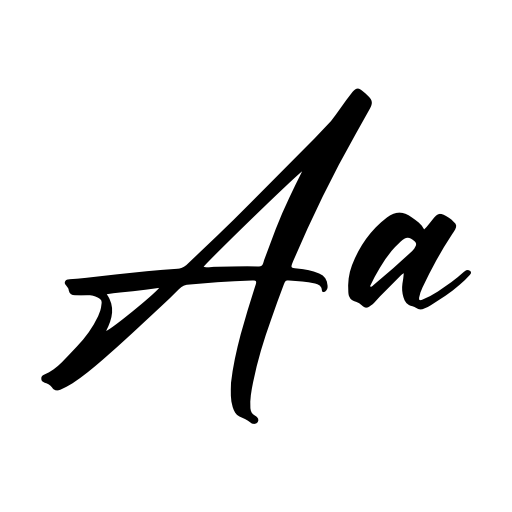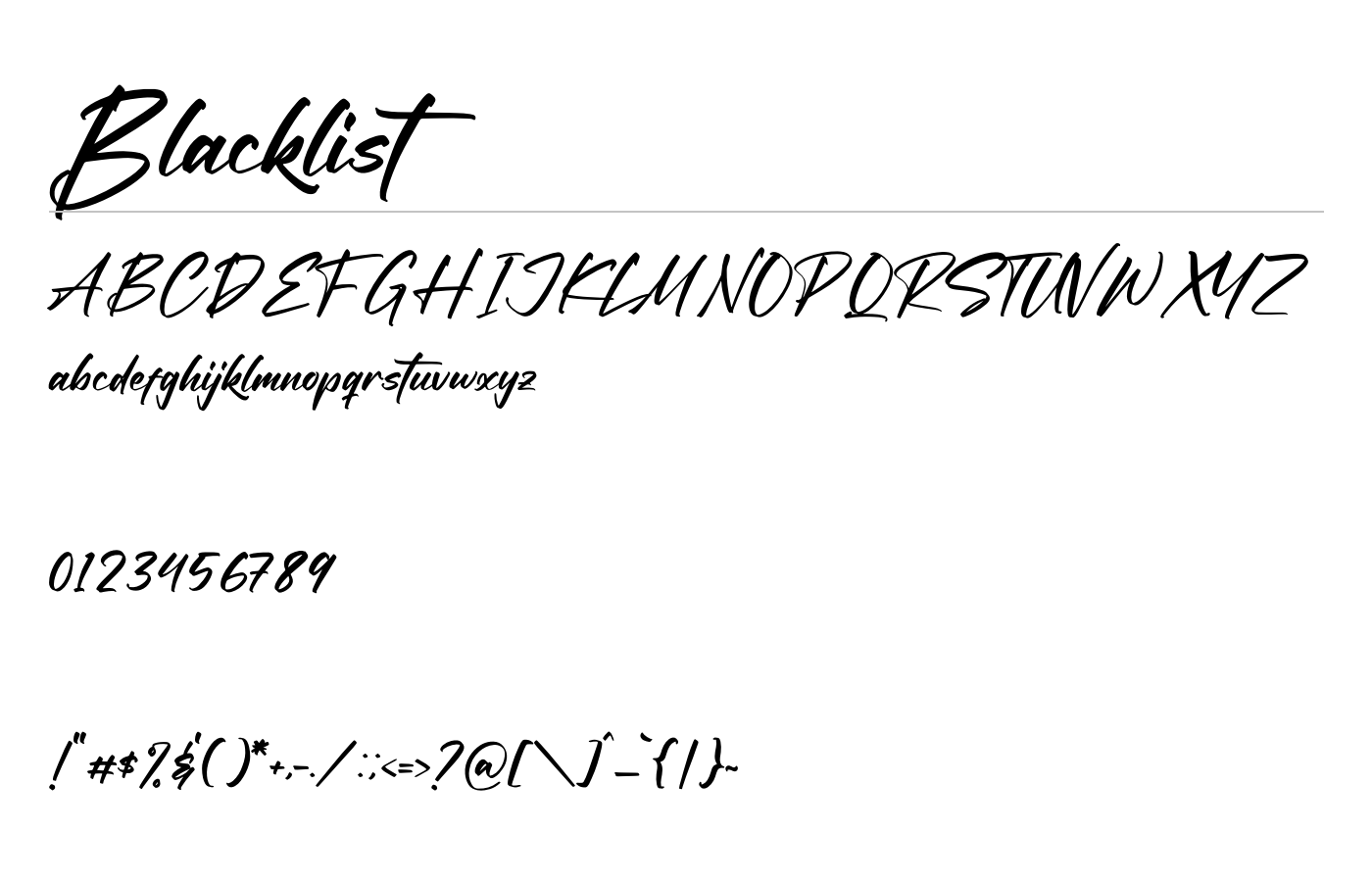
Blacklist is a dynamic script font with a hand-lettered feel, featuring energetic strokes and a moderate contrast that adds personality without sacrificing readability. Its tall, slightly condensed letterforms and distinctive, flowing connections make it perfect for creative branding, headlines, and bold editorial statements where a modern, confident, and personal touch is desired. This font shines in projects aiming to convey style, vibrancy, and a touch of casual sophistication.
Blacklist Font
About Blacklist Font
| Font family | Blacklist Font |
| Designer | Nanang Jamaludin |